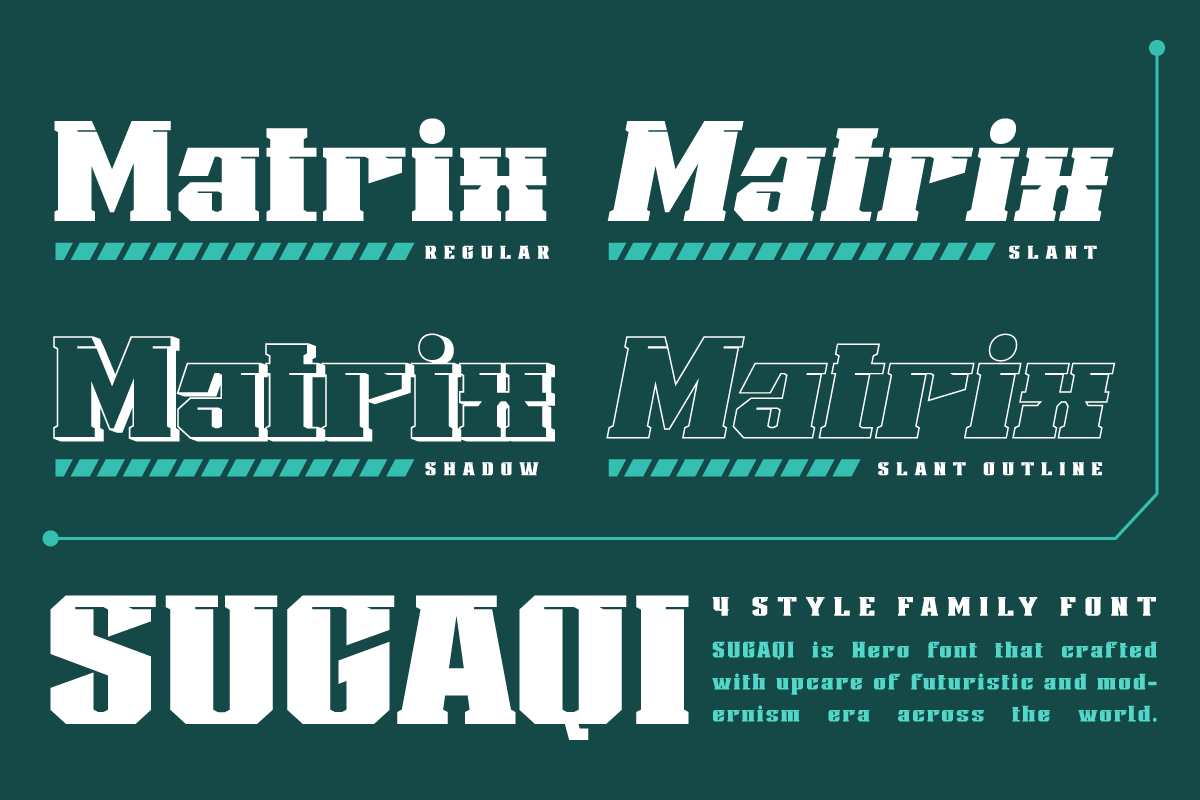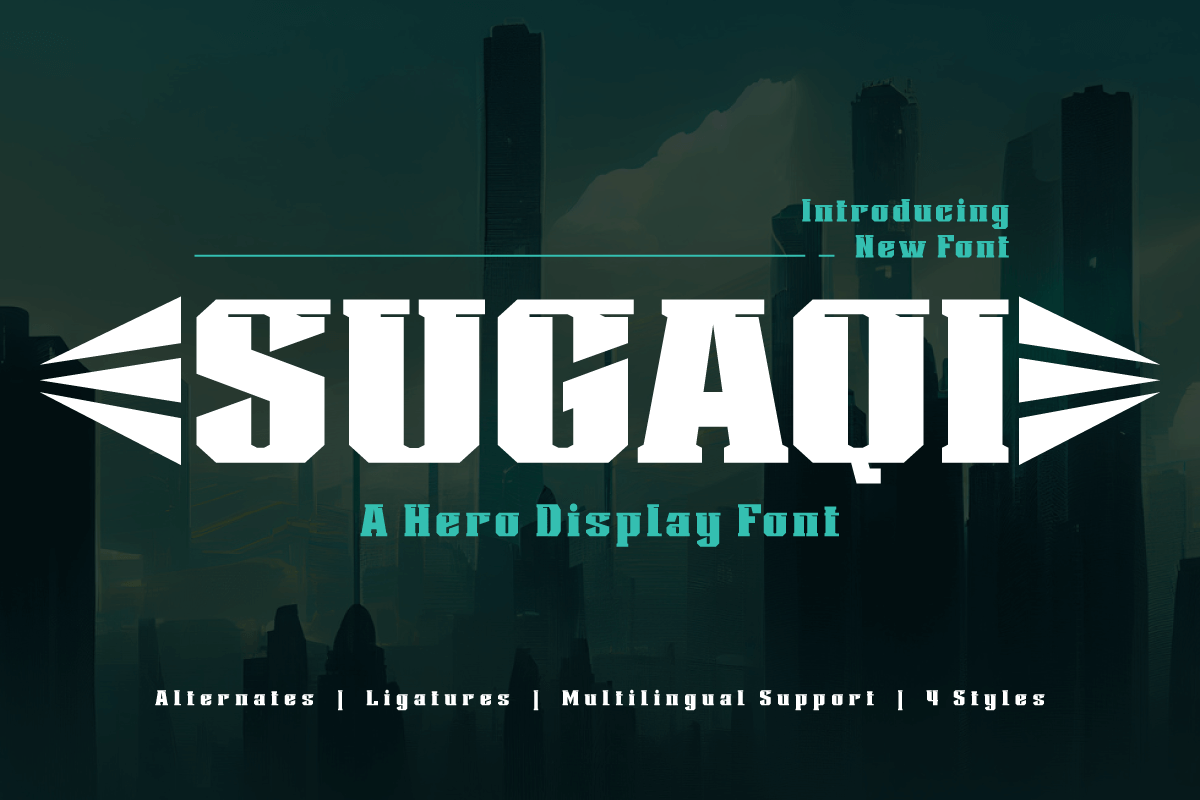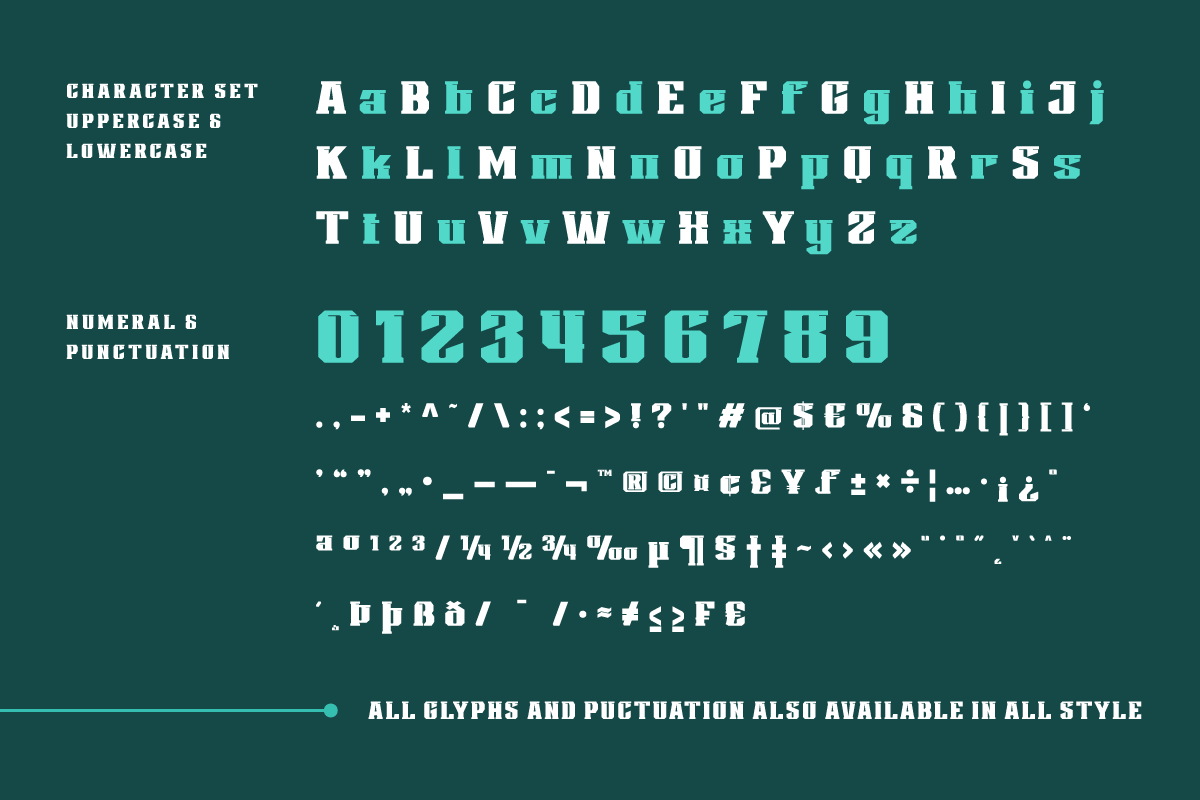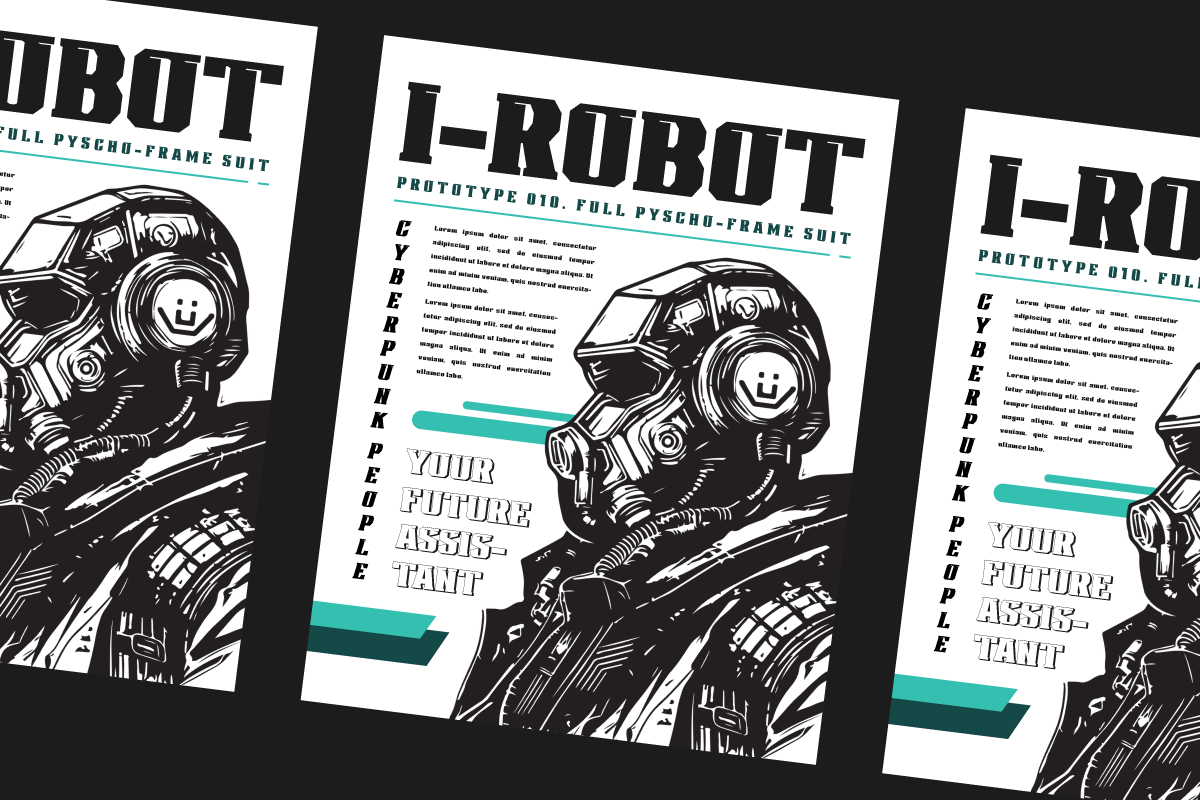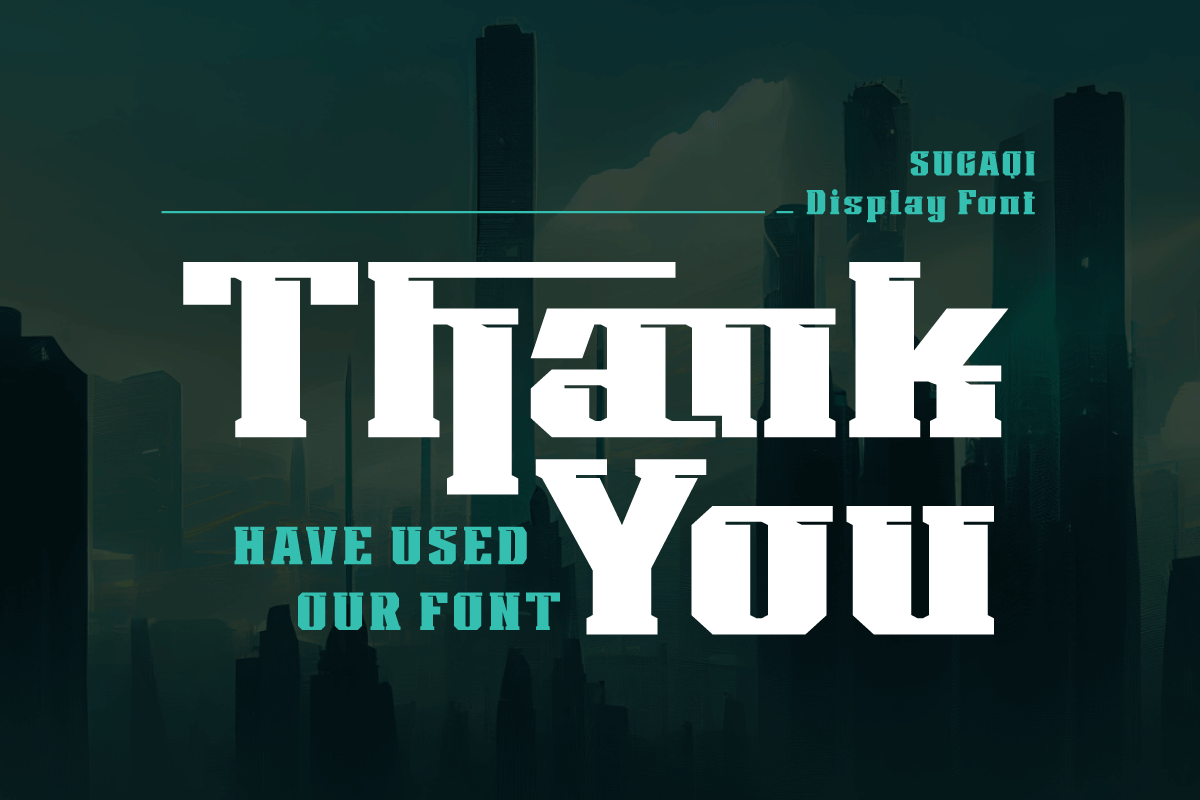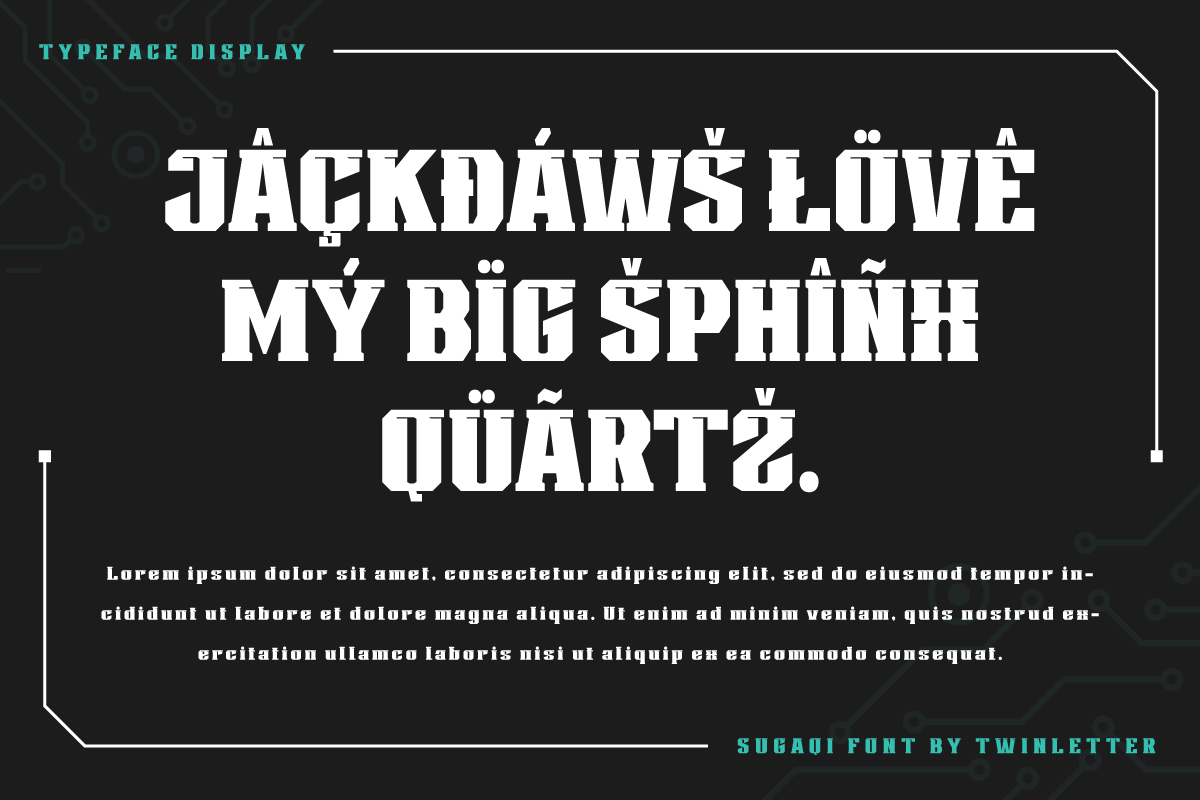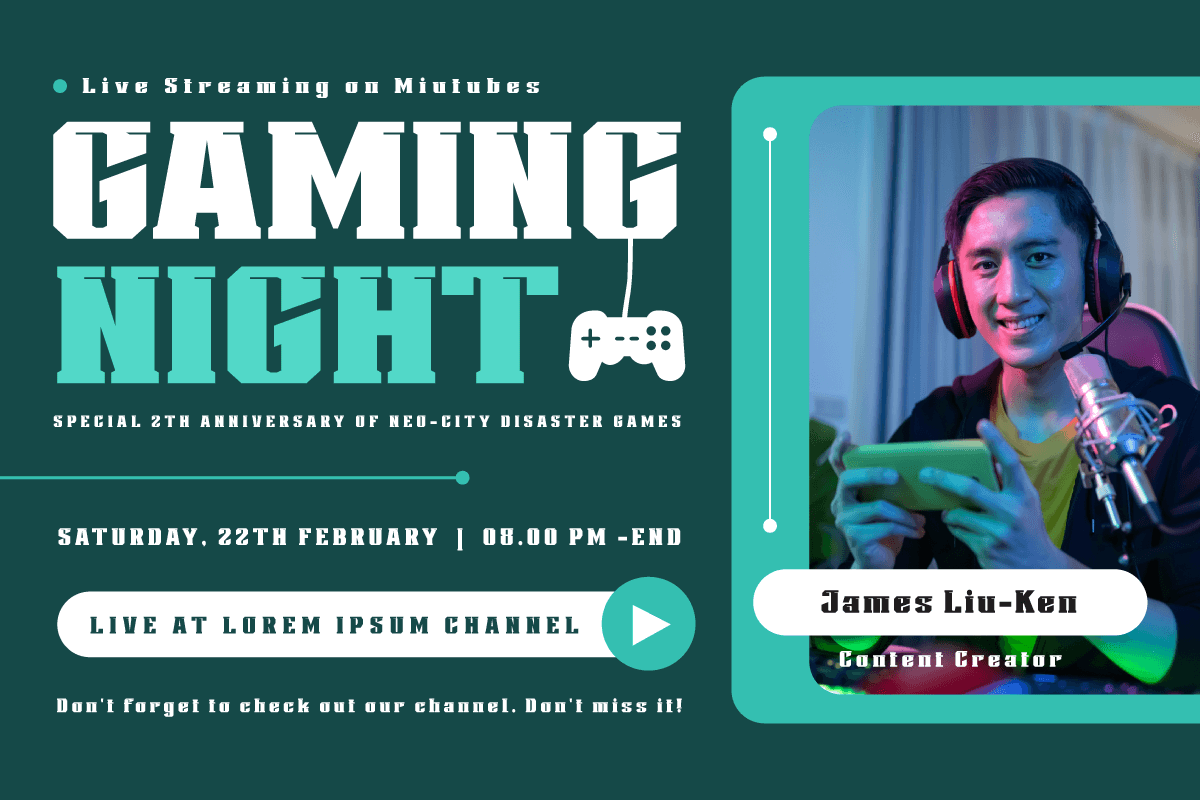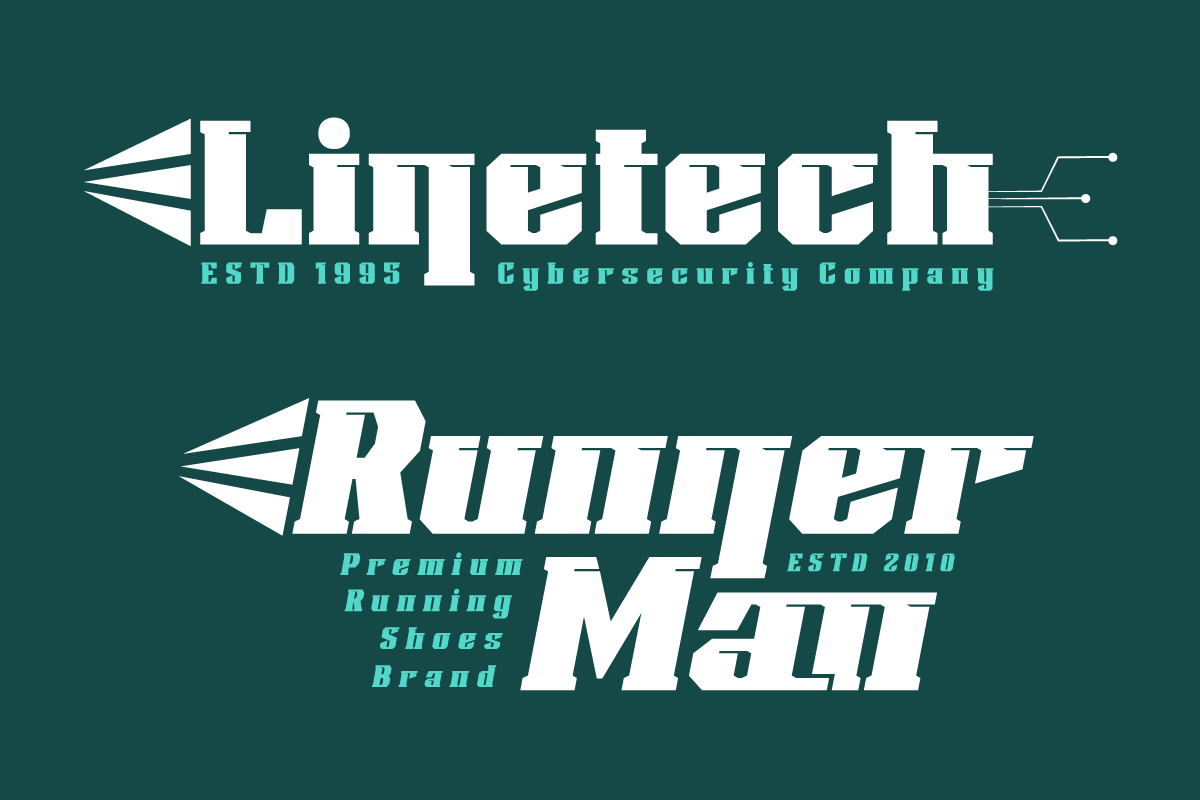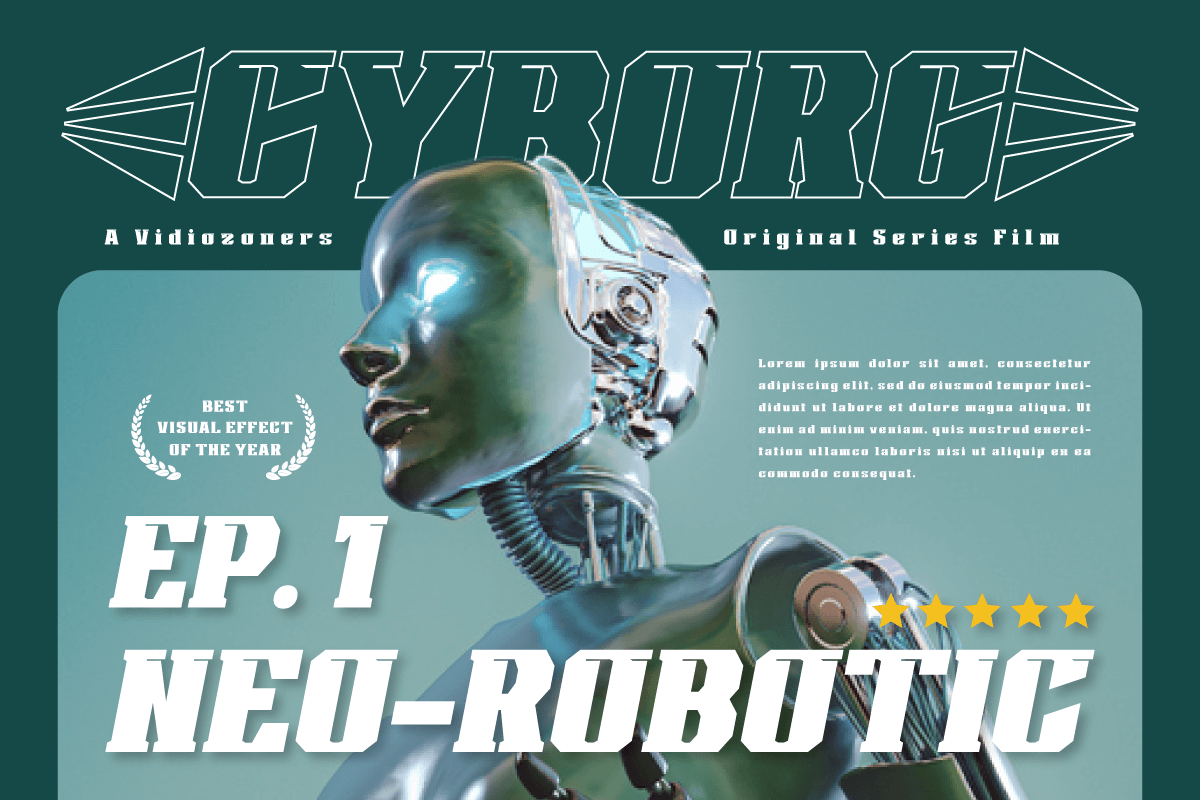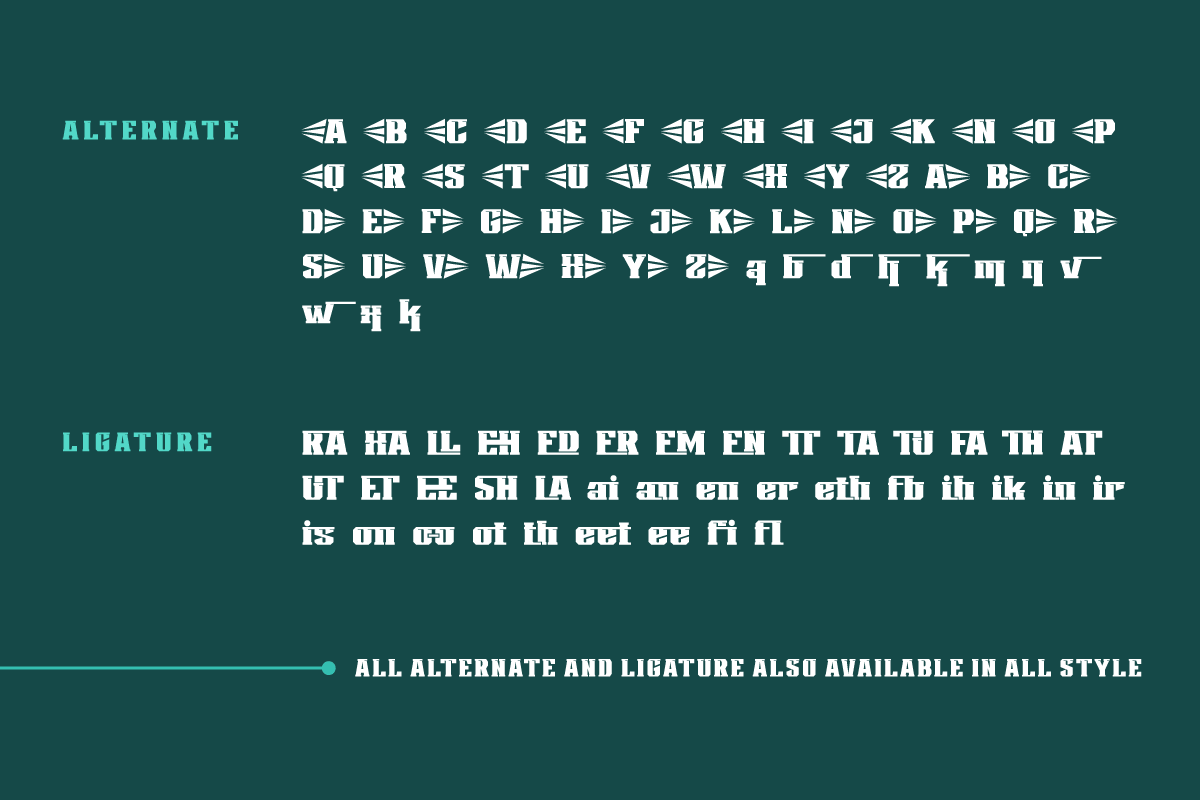
Sugaqi | Display Hero Font
Sugaqi is a visual embodiment of courage in the form of a superhero display font. Tailor-made for projects that require a bold, bold, and punchy look like movies, games, or standout designs.
With an inspiring display style, Sugaqi brings heroic energy to every letter. Pushing your project to stand above the rest, this font is the perfect solution for creating an unforgettable look.
Sugaqi’s uniqueness lies not only in its powerful appearance but also in its special features. Ligatures and alternates give you unlimited creativity in creating interesting and unique letter variations.
Not only that, Sugaqi also supports various languages and cultures with its multilingual feature. This allows you to present powerful and inspiring messages to a global audience.
Choose Sugaqi to bring an aura of hero to your projects. With a bold look and awesome features, this font is ready to help you create extraordinary masterpieces that you will never forget.
- Alternate, Ligature